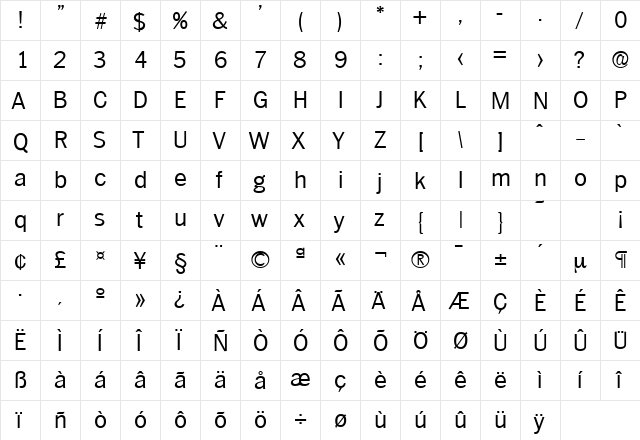
Plymouth-Serial-Light Regular
Design Context for Plymouth-Serial-Light Typeface
Plymouth-Serial-Light offers clean, dependable letterforms without strong stylistic allegiance, making it a practical choice for designers who need flexibility. Its slender proportions lend an understated elegance to any composition.